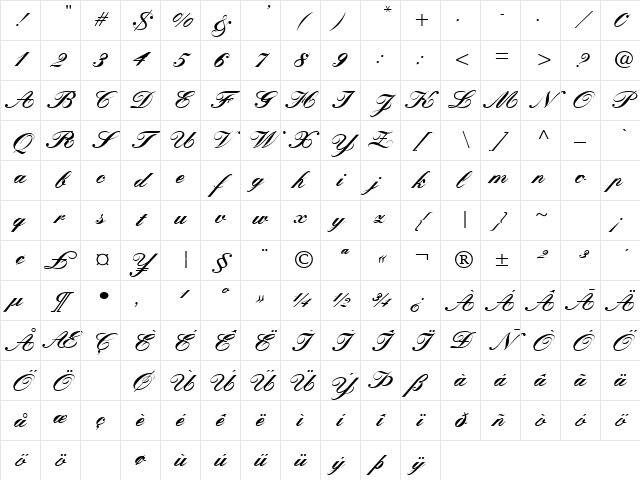
Complete HKastler Bold Italic glyph index. Displaying only characters natively supported by HKastler Bold Italic font.
HKastler is a composed and adaptable typeface that performs quietly and consistently across a wide range of design contexts. The slanted form adds forward momentum and visual energy. Its bold stroke weight gives it real presence on the page.